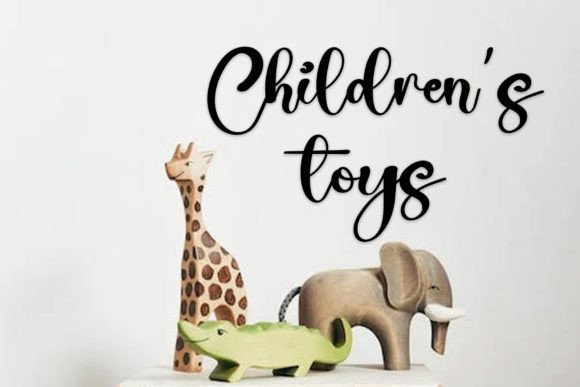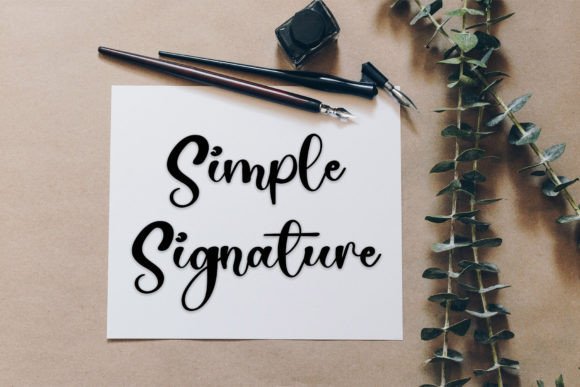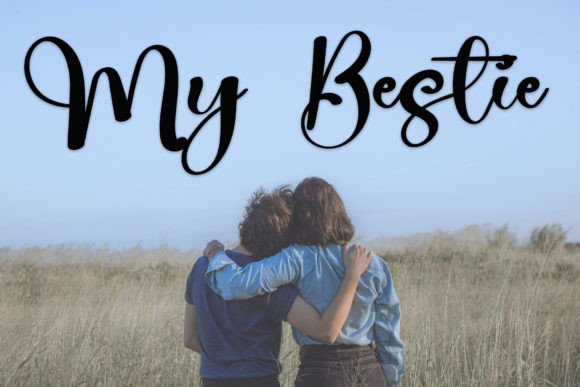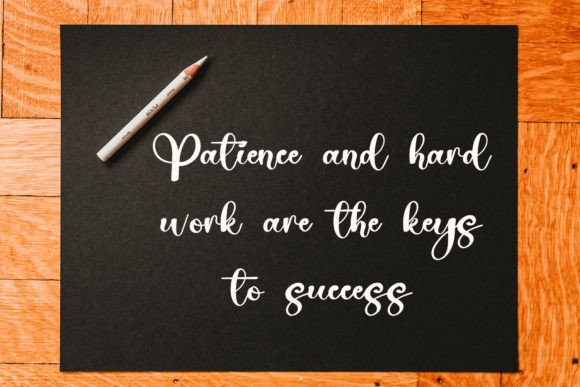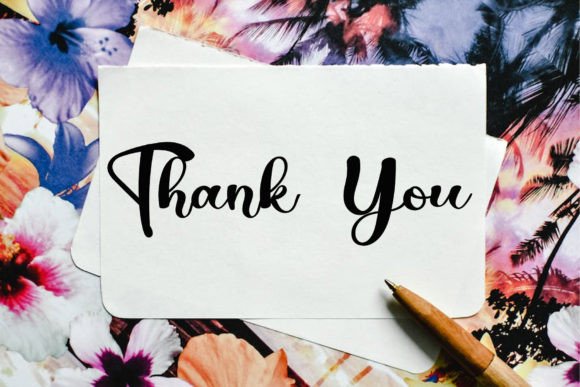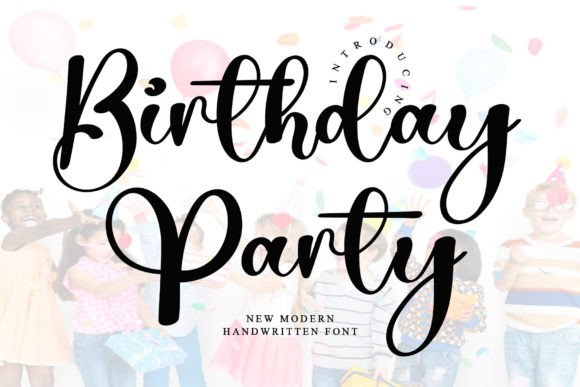
Introducing Birthday Party Font: Elevate Your Designs with Elegance
Are you on the lookout for a font that adds a touch of sophistication and charm to your projects? Look no further than the Birthday Party Font, a stunning handwritten font that is sure to capture your heart. With its elegant and refined style, this font is perfect for designers and crafters seeking to create visually appealing designs that stand out from the crowd.
The Beauty of Birthday Party Font
Birthday Party Font is a neat and beautiful handwritten font that boasts an incredibly distinct and timeless style. Its elegant touch makes it an ideal choice for a wide range of projects, from wedding invitations and party decorations to branding and advertising materials. The font’s unique charm lies in its ability to convey a sense of sophistication and whimsy, making it perfect for designers who want to add a personal touch to their work.
Key Features of Birthday Party Font
- Handwritten style: Birthday Party Font features a beautiful handwritten style that is both elegant and refined.
- Elegant touch: The font’s elegant touch makes it perfect for projects that require a touch of sophistication.
- Distinct and timeless style: The font’s incredibly distinct and timeless style ensures that your designs will stand out from the crowd.
- Versatile: Birthday Party Font is versatile and can be used for a wide range of projects, from wedding invitations to branding materials.
Why Choose Birthday Party Font?
So, why choose Birthday Party Font for your next project? Here are just a few reasons why this font stands out from the rest:
- Unique style: Birthday Party Font features a unique style that is sure to capture your audience’s attention.
- Elegant and refined: The font’s elegant and refined style makes it perfect for projects that require a touch of sophistication.
- Easy to read: Despite its elegant style, Birthday Party Font is easy to read, making it perfect for body text and headlines.
- Customizable: The font is highly customizable, allowing you to adjust the size, color, and style to suit your project’s needs.
Using Birthday Party Font in Your Designs
Using Birthday Party Font in your designs is easy. Here are a few tips to get you started:
- Pair it with other fonts: Birthday Party Font pairs well with other fonts, such as sans-serif fonts like Arial or Helvetica.
- Use it for headlines and titles: The font’s elegant style makes it perfect for headlines and titles.
- Add a personal touch: Use Birthday Party Font to add a personal touch to your designs, such as in wedding invitations or party decorations.
In conclusion, Birthday Party Font is a beautiful and elegant handwritten font that is perfect for designers and crafters seeking to create visually appealing designs. With its incredibly distinct and timeless style, this font is sure to capture your heart and elevate your designs to the next level. So why wait? Download Birthday Party Font today and start creating spectacular designs that will leave a lasting impression!